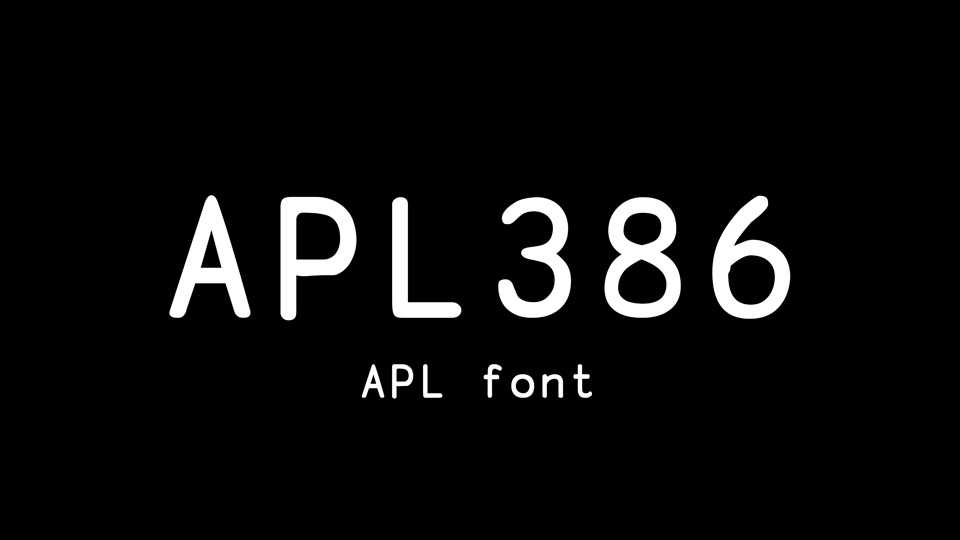
Download APL386 Unicode font, APL typeface based on Adrian Smith’s APL385 font with a fun, whimsical look, inspired by Comic Sans Serif.
Designer: Adám Brudzewsky